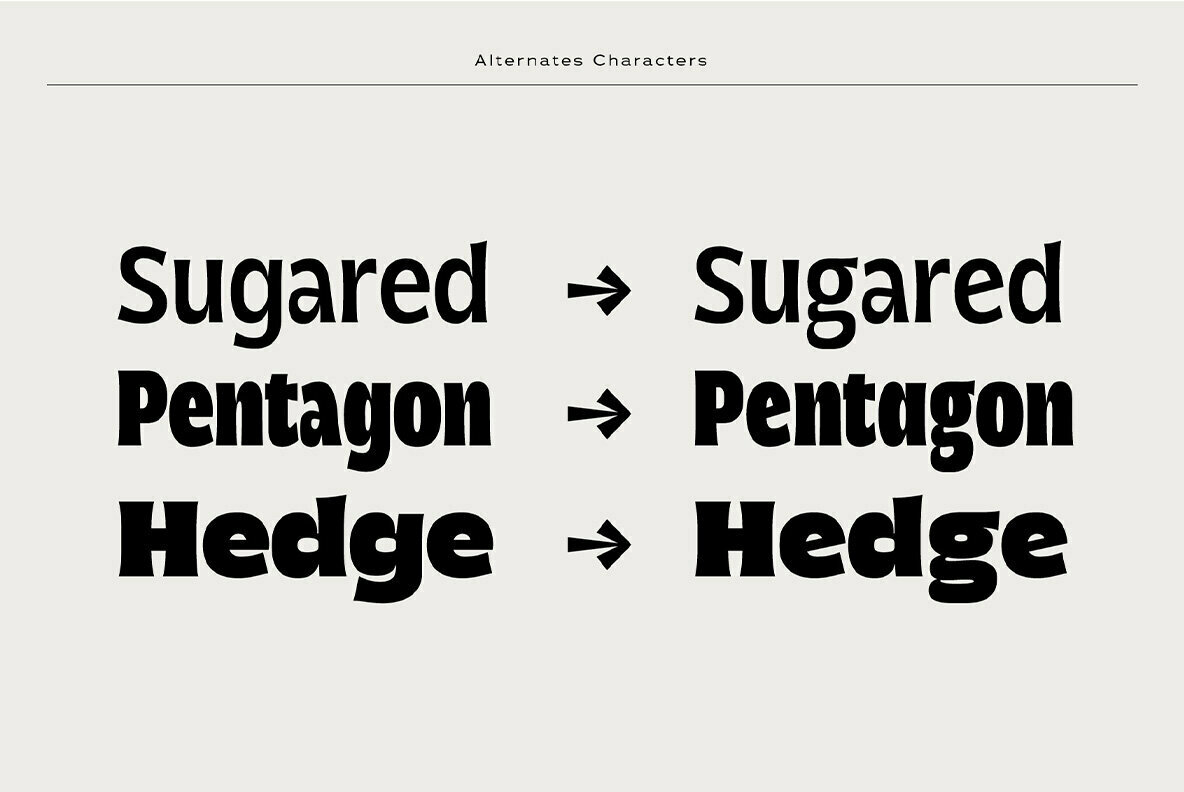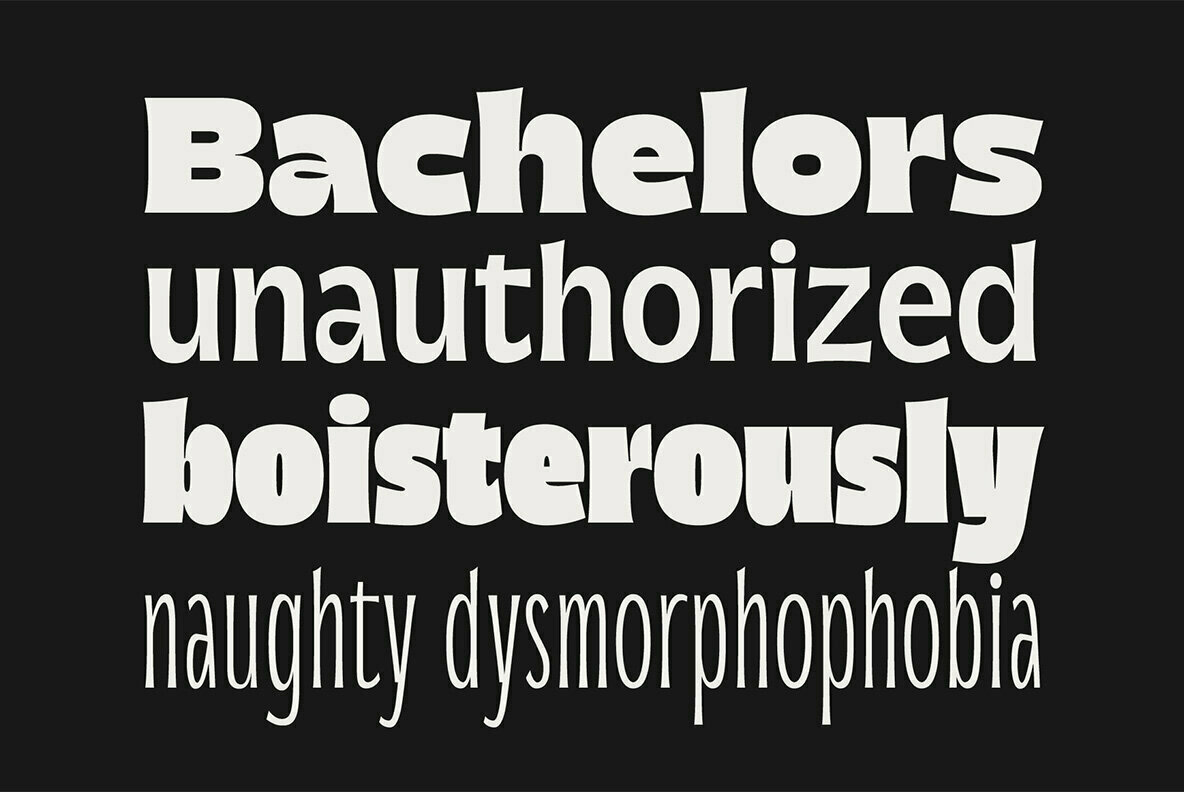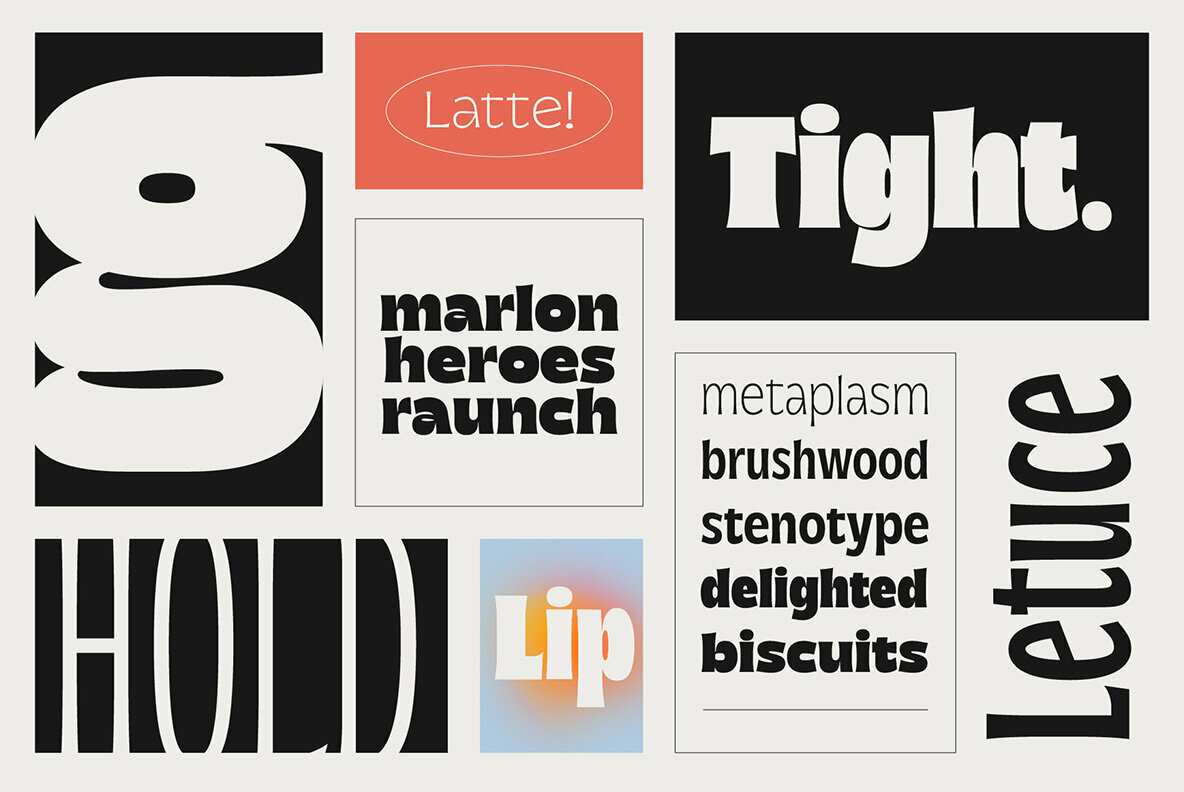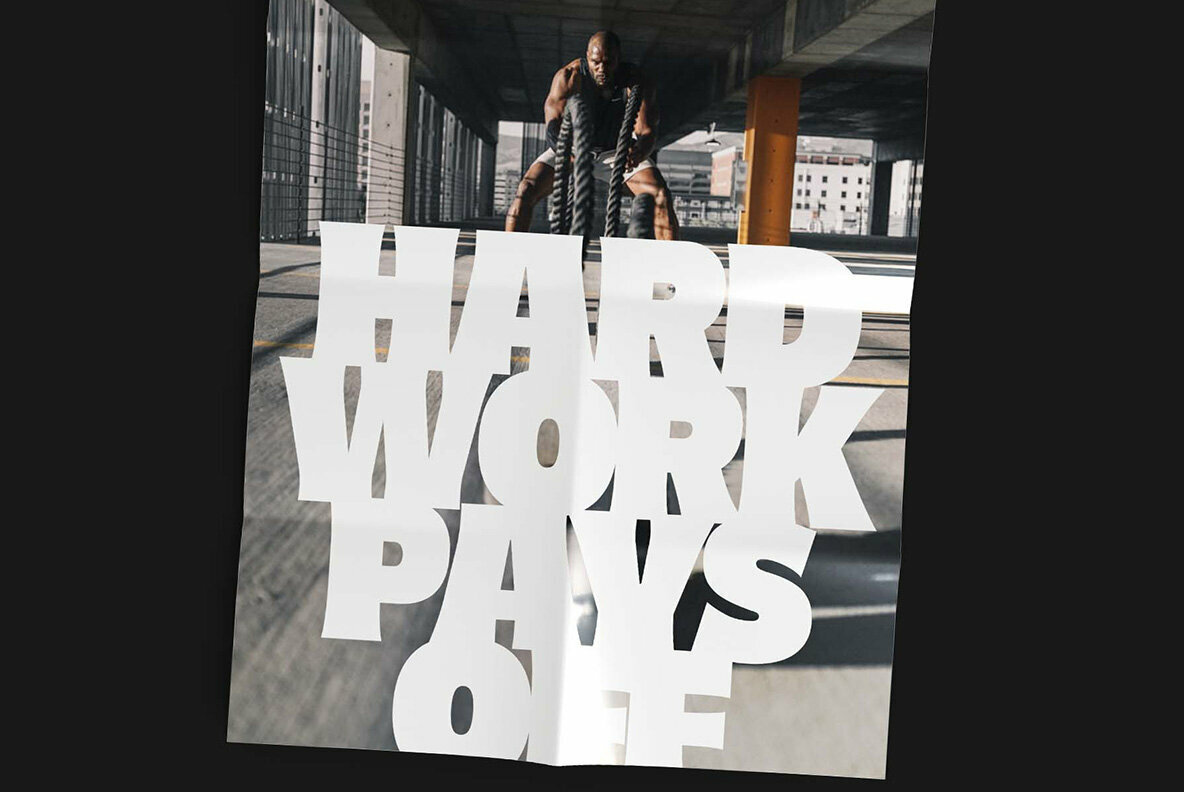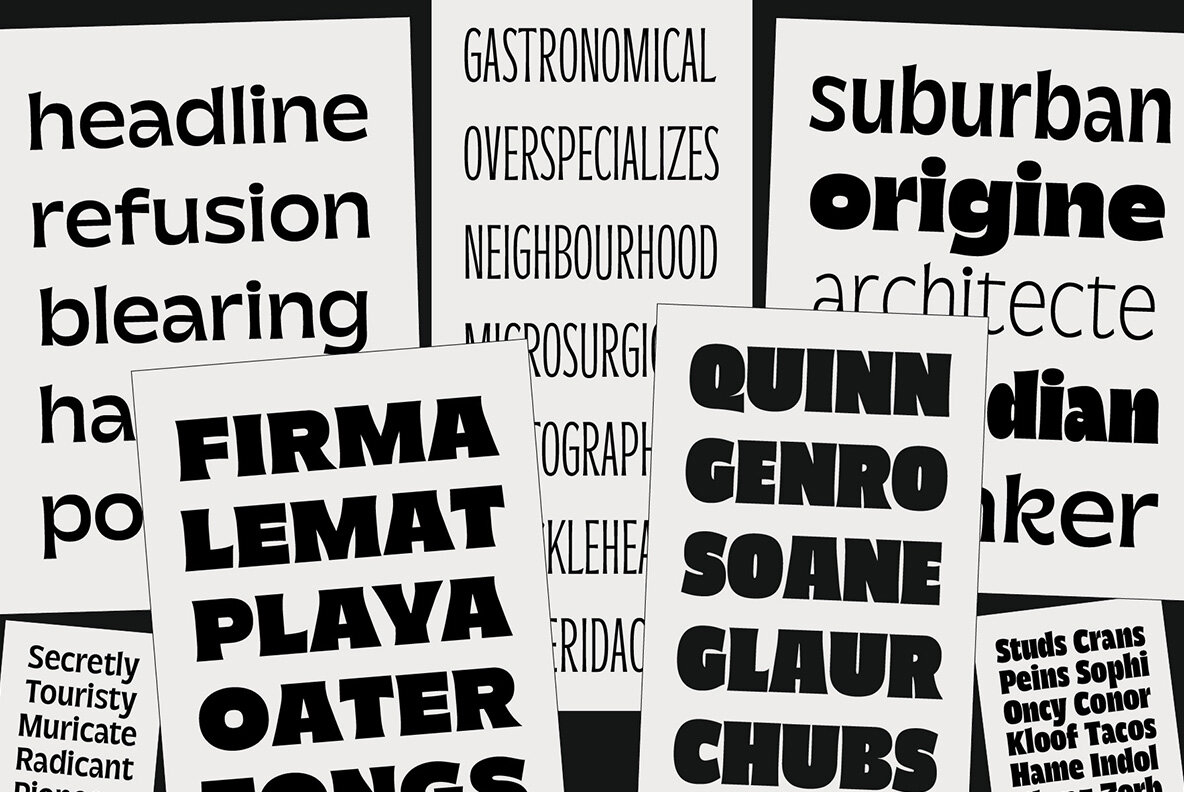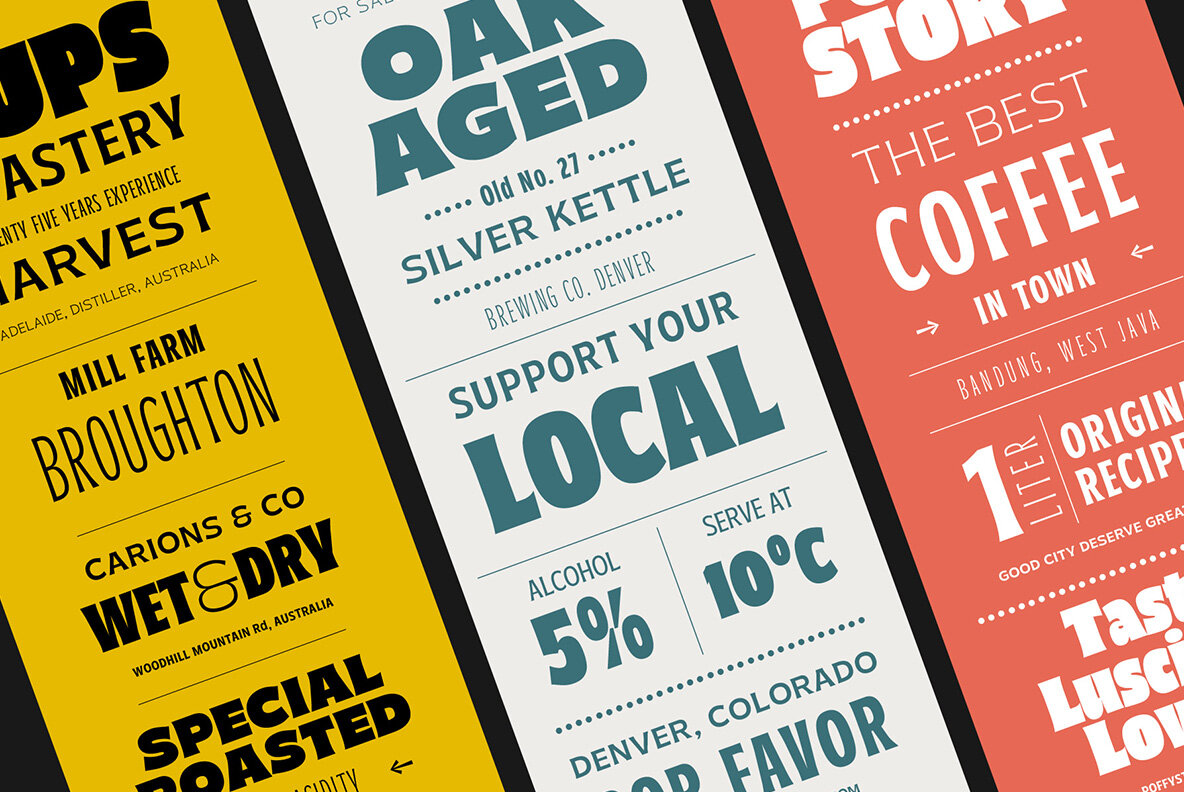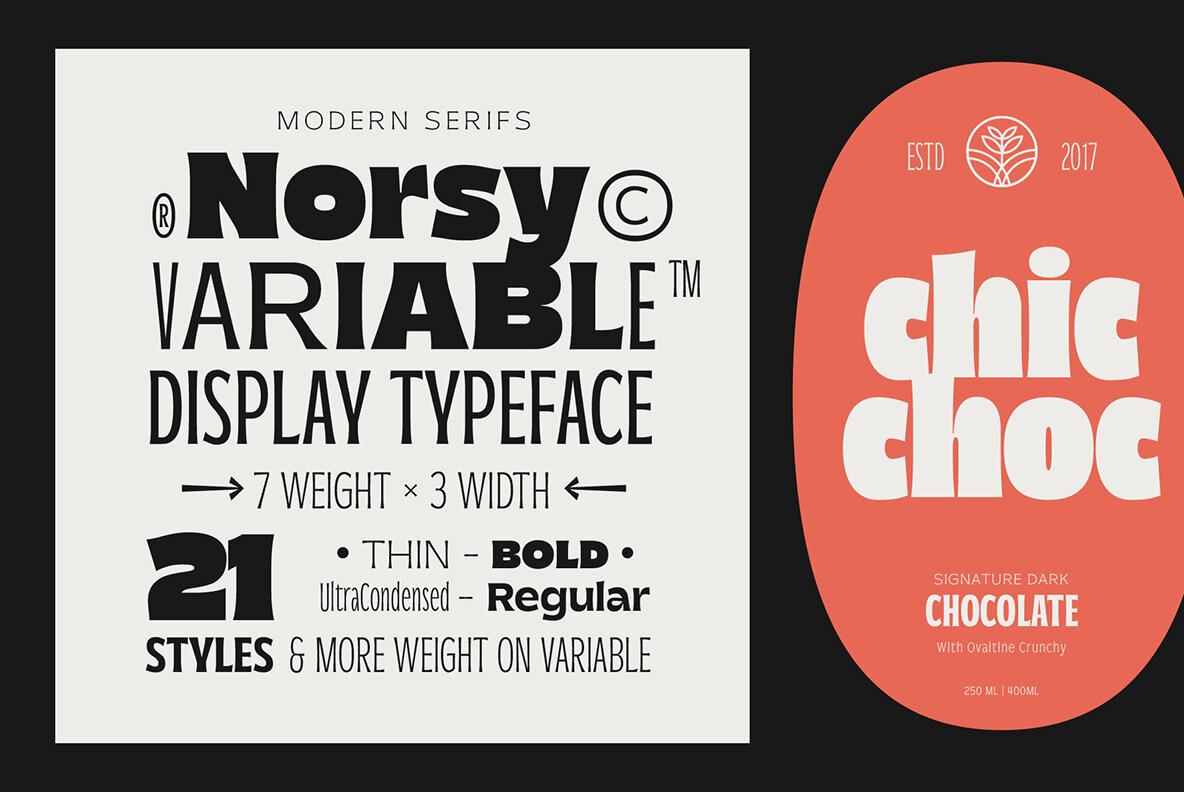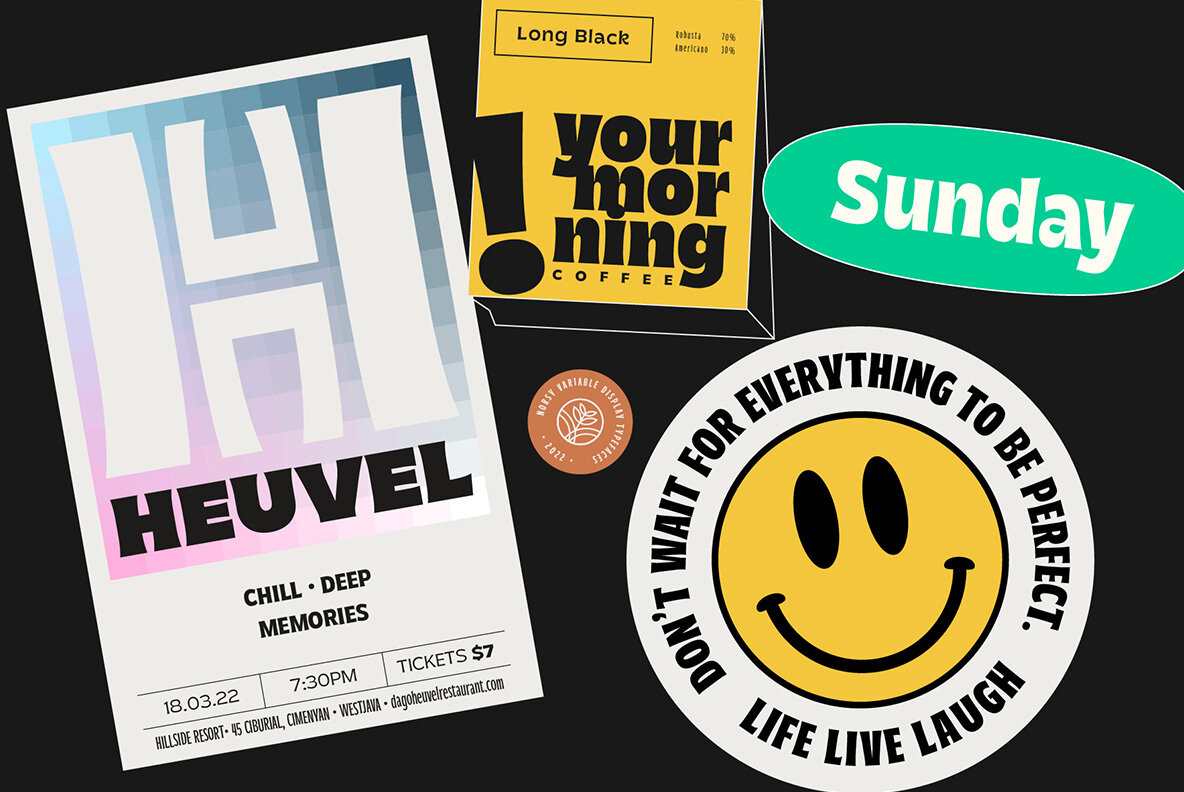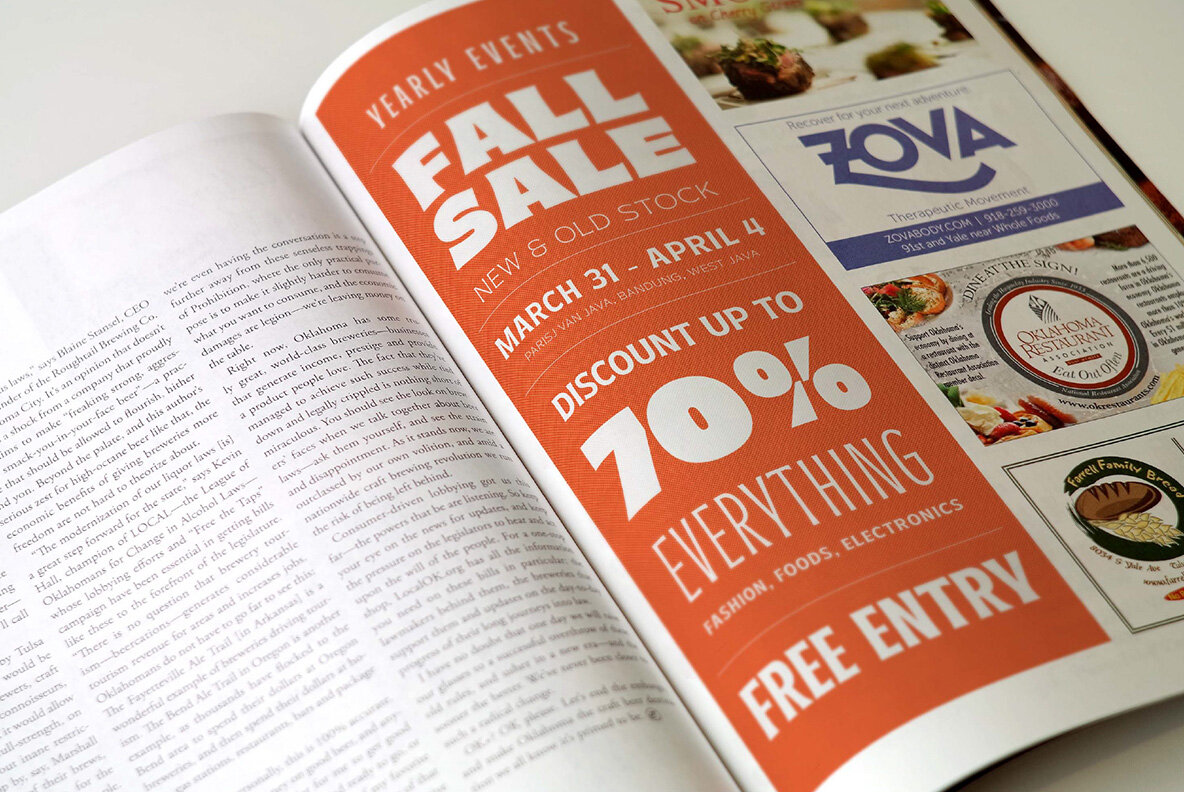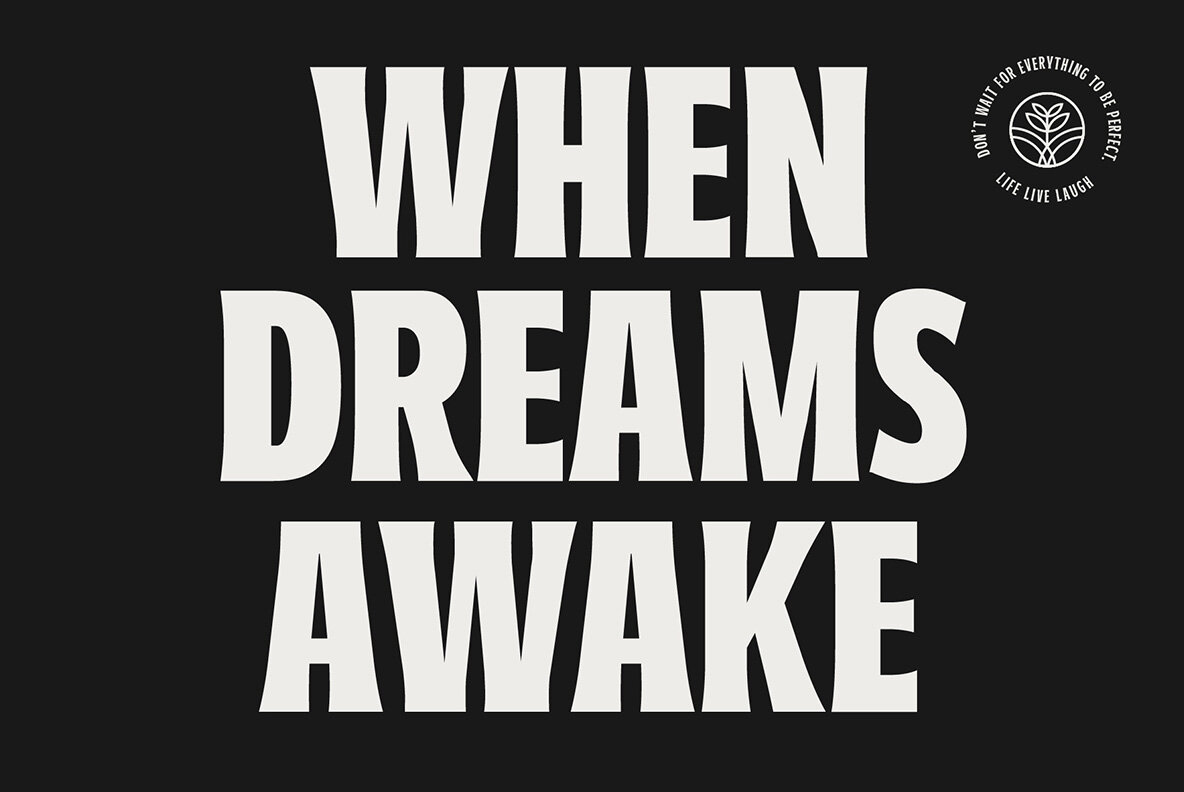
Norsy Font
Norsy is an elegant, modern variable font design. It's basically a sans-serif with subtle touches of serif on every letter - which makes it very readable and simple at once! You can explore 21 different styles (including the original), mix them up however you like or use just one for design projects in general.